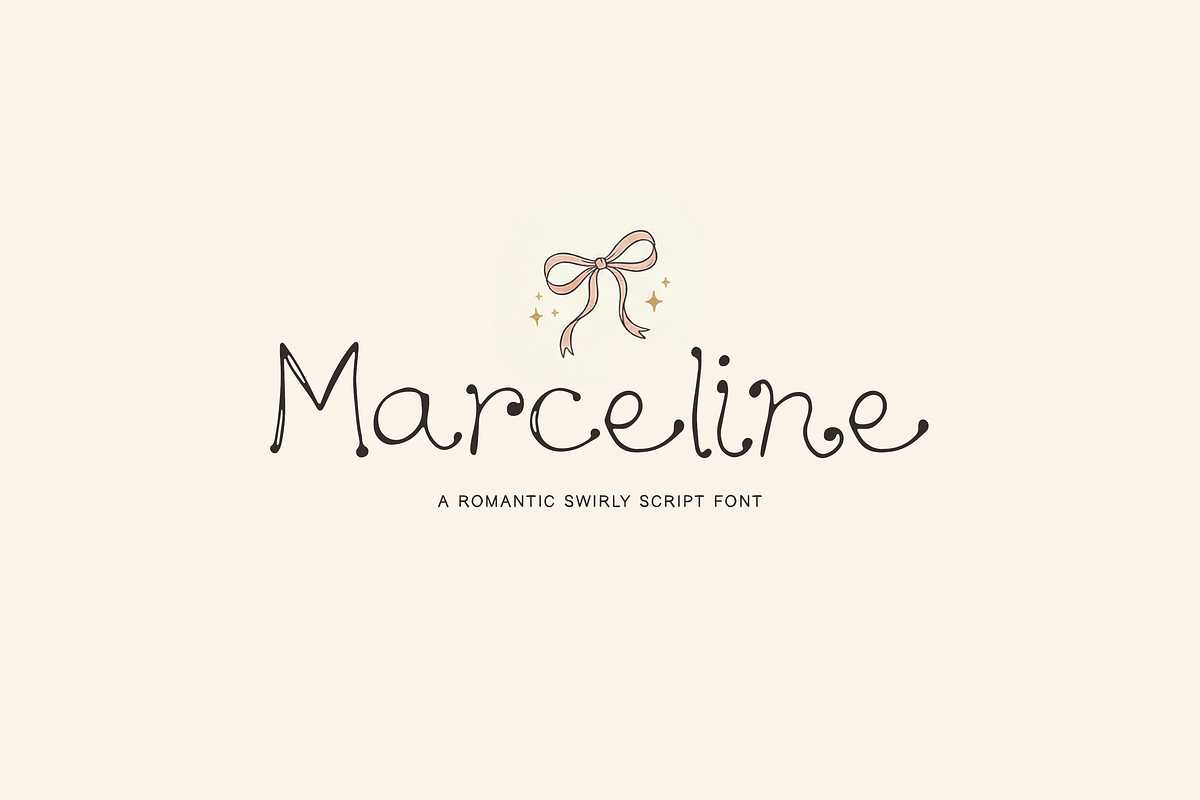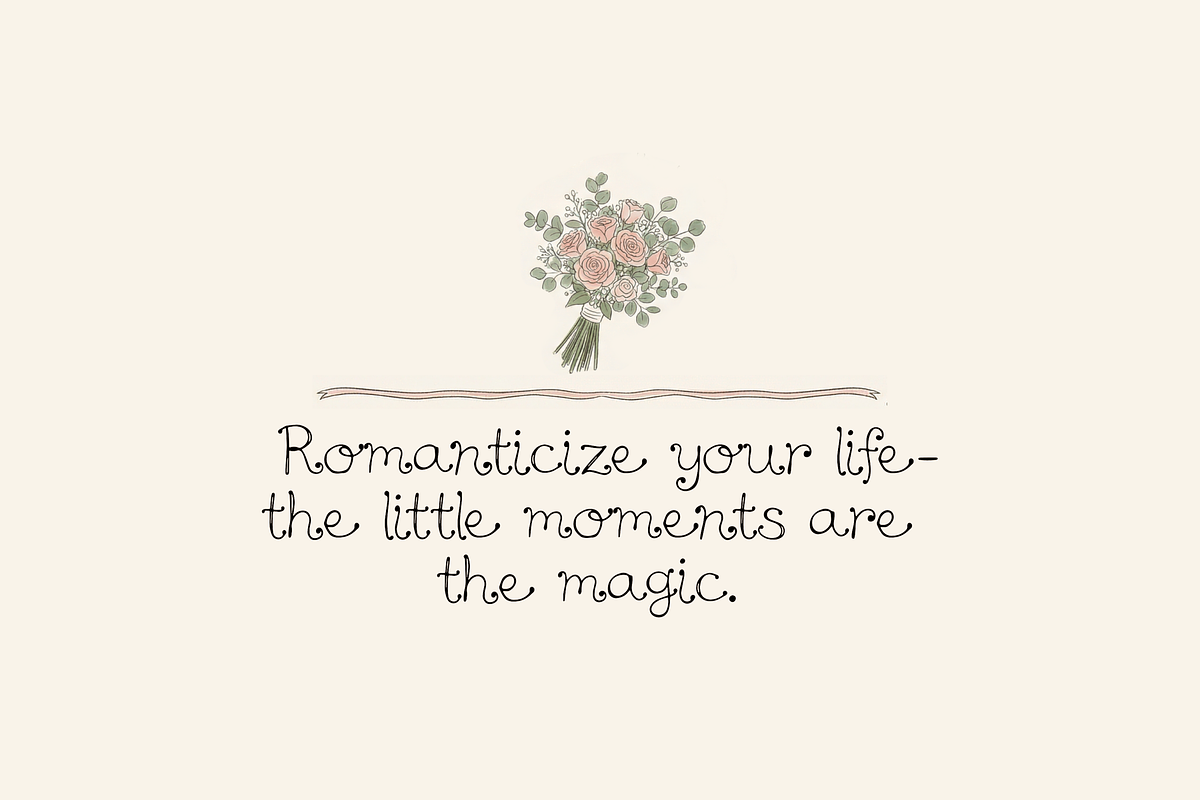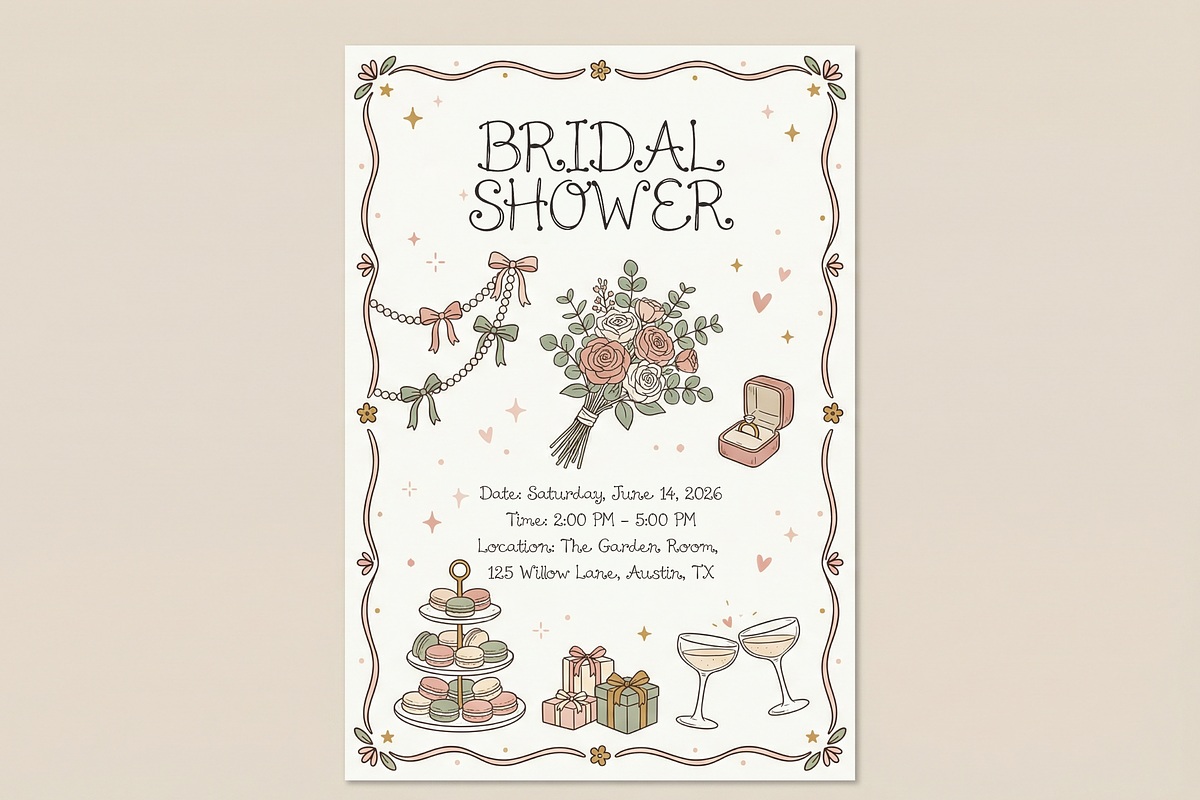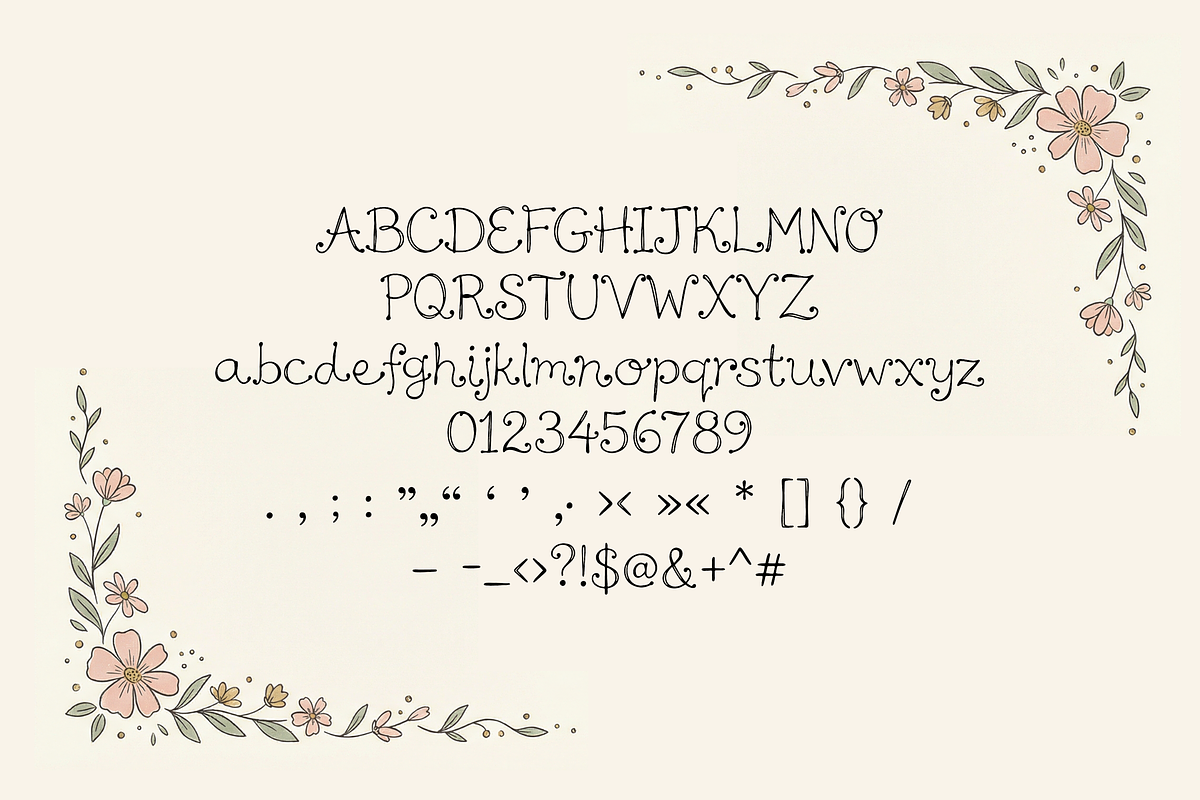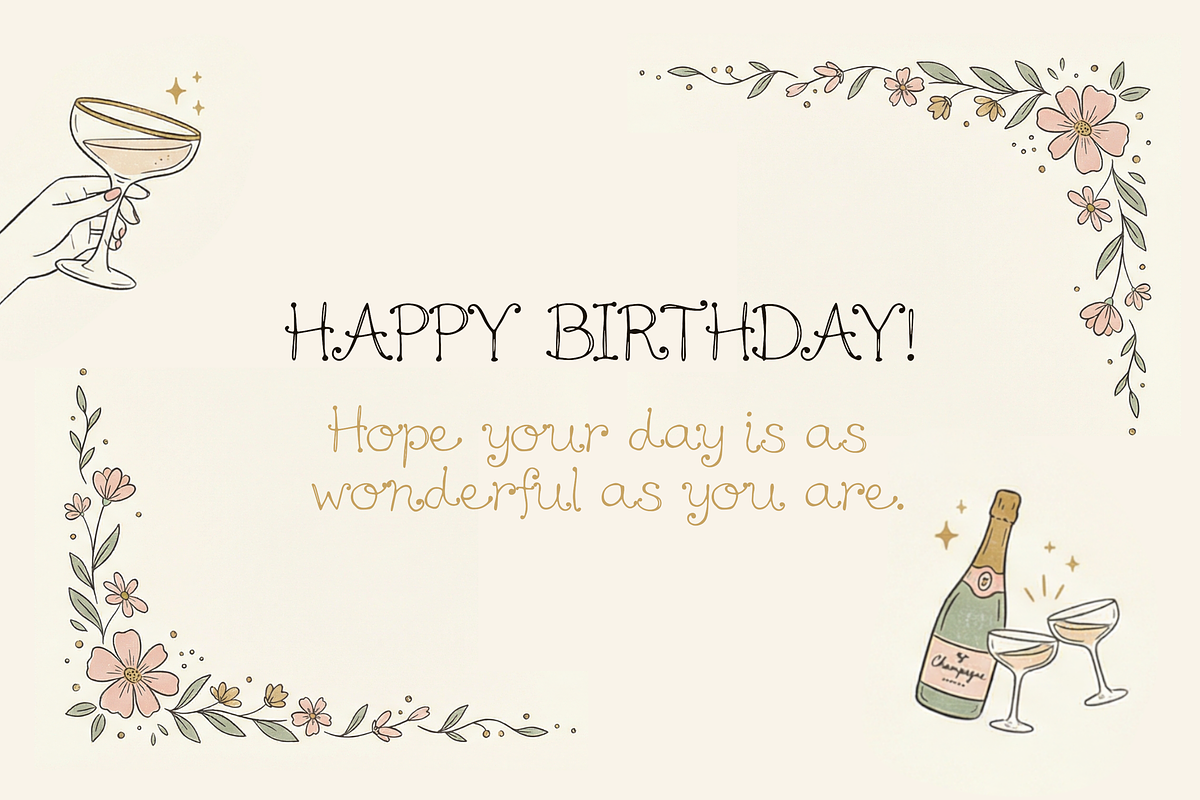
Marceline Romantic Swirly Script
Marceline is a romantic, swirly script font with delicate thin strokes, playful curls, and a sweet vintage charm. Inspired by Rococo elegance, it adds a soft, whimsical touch to modern design—ideal for invitations, branding, and pretty editorial titles.